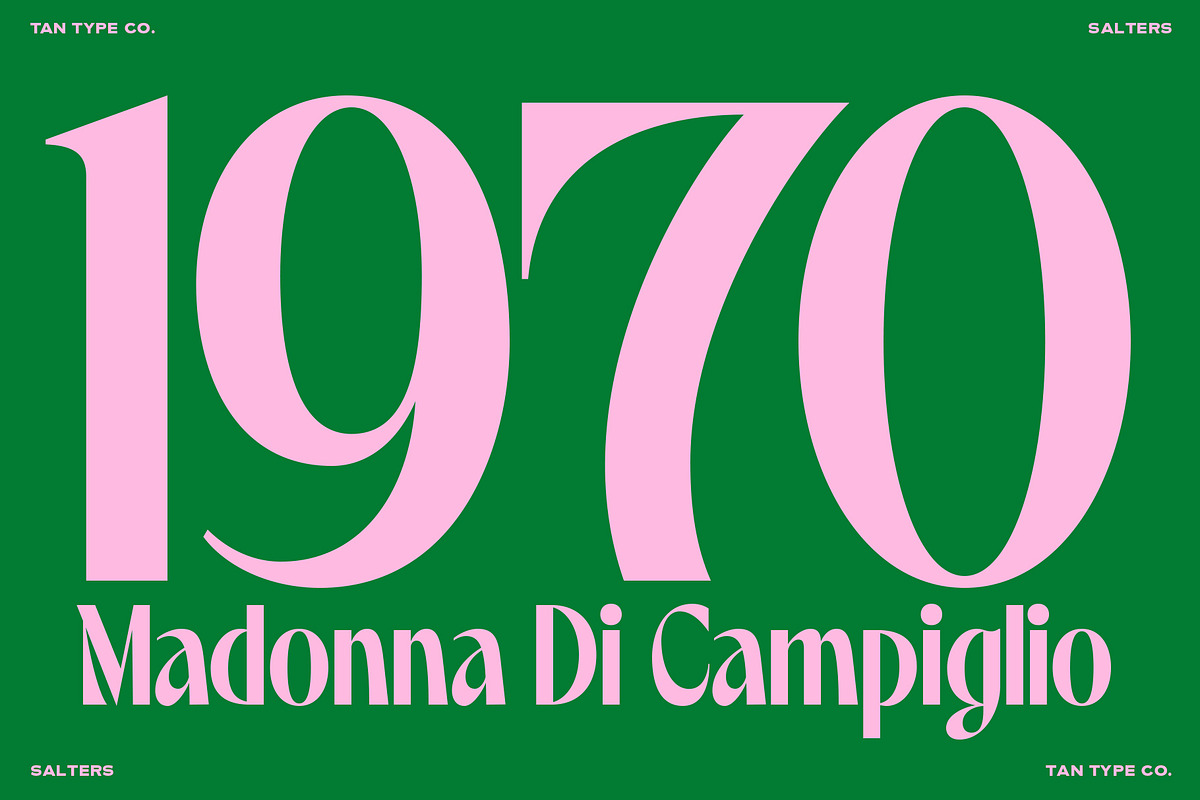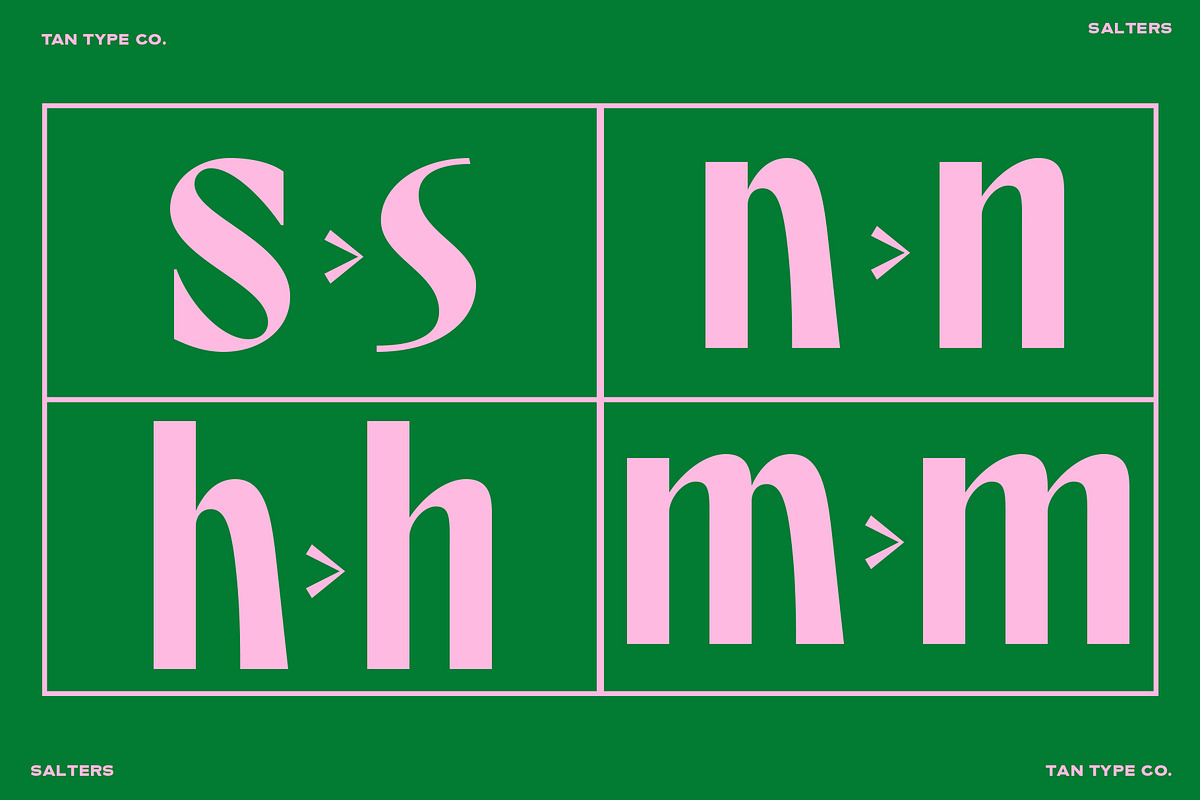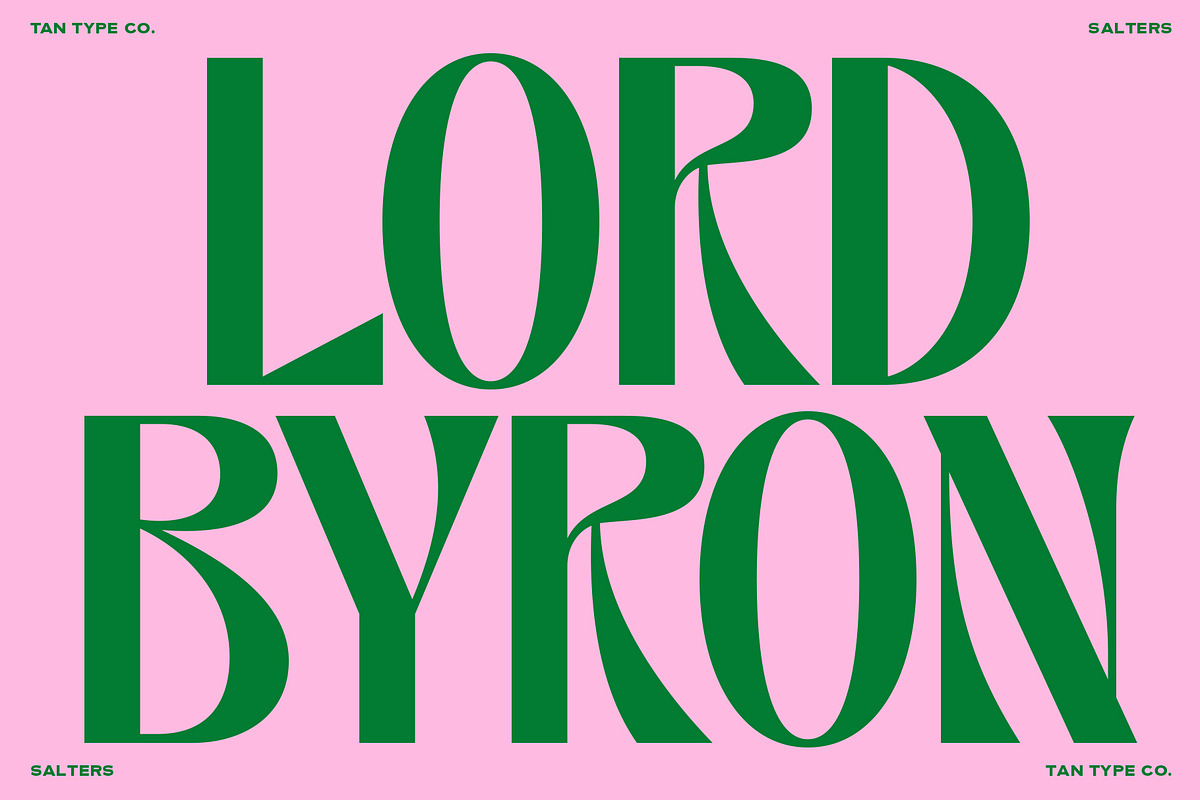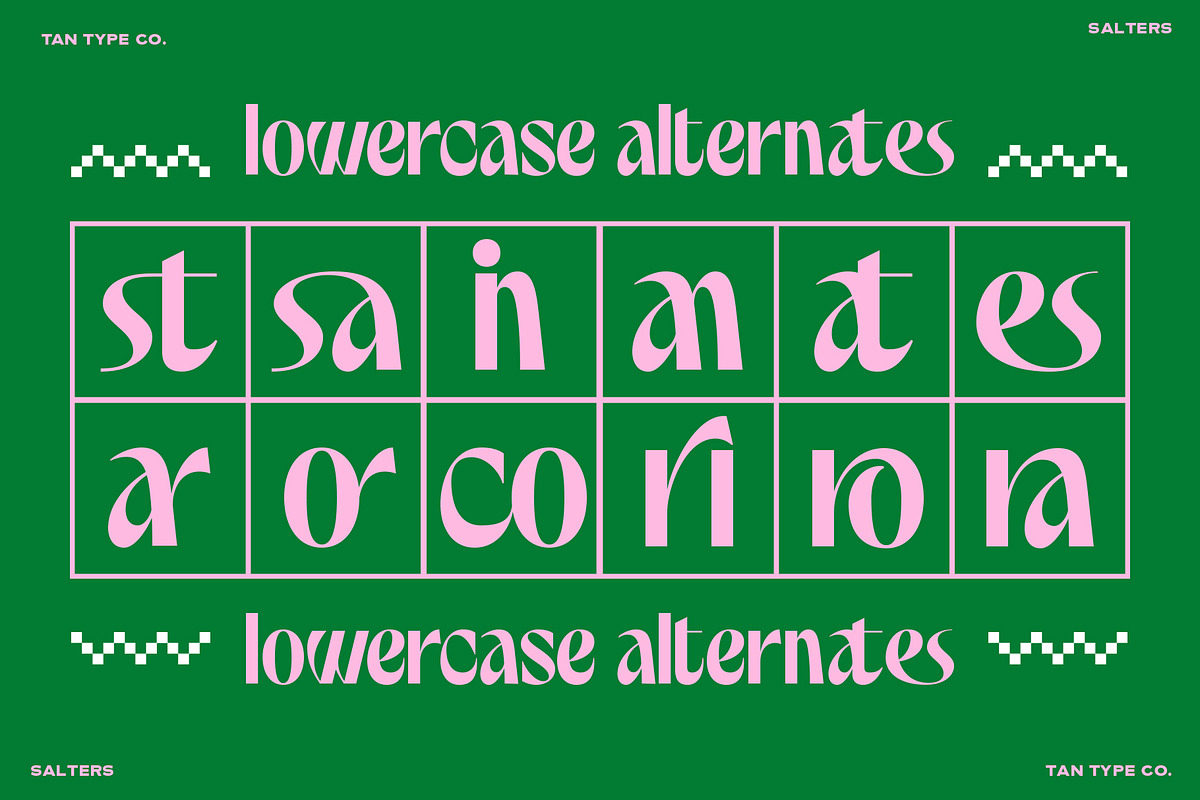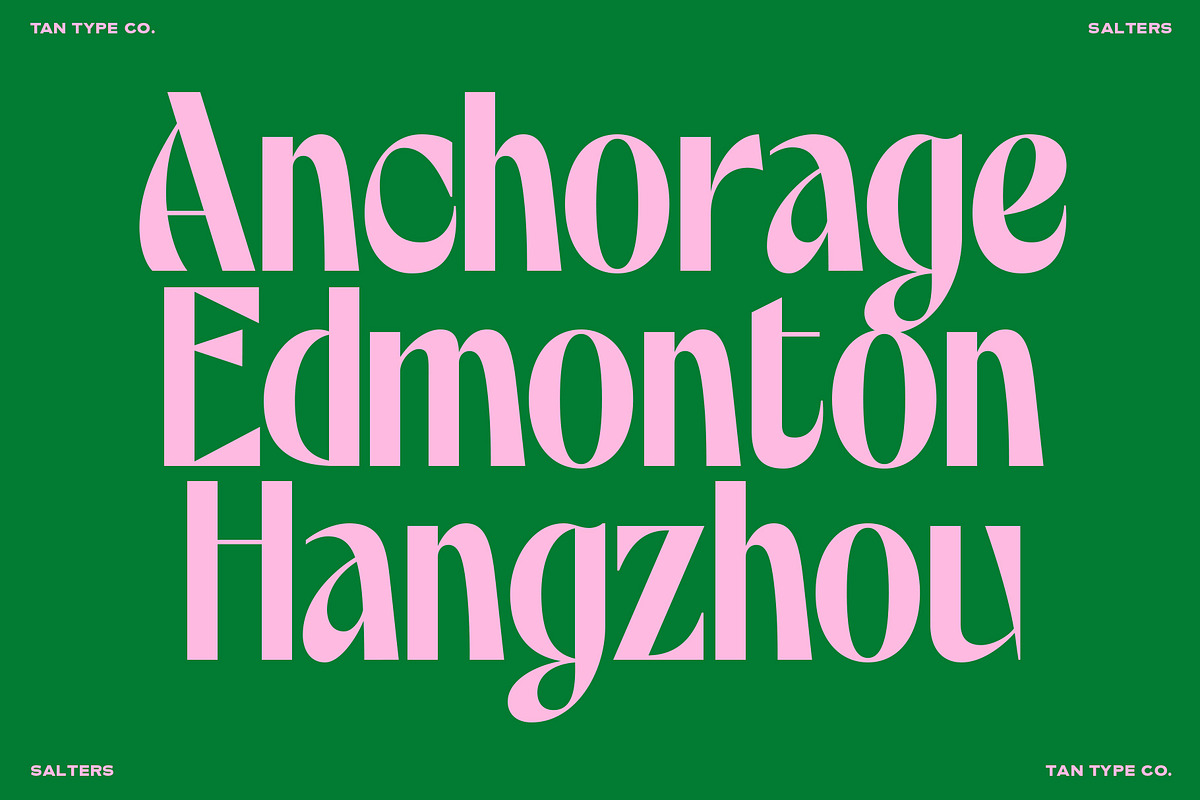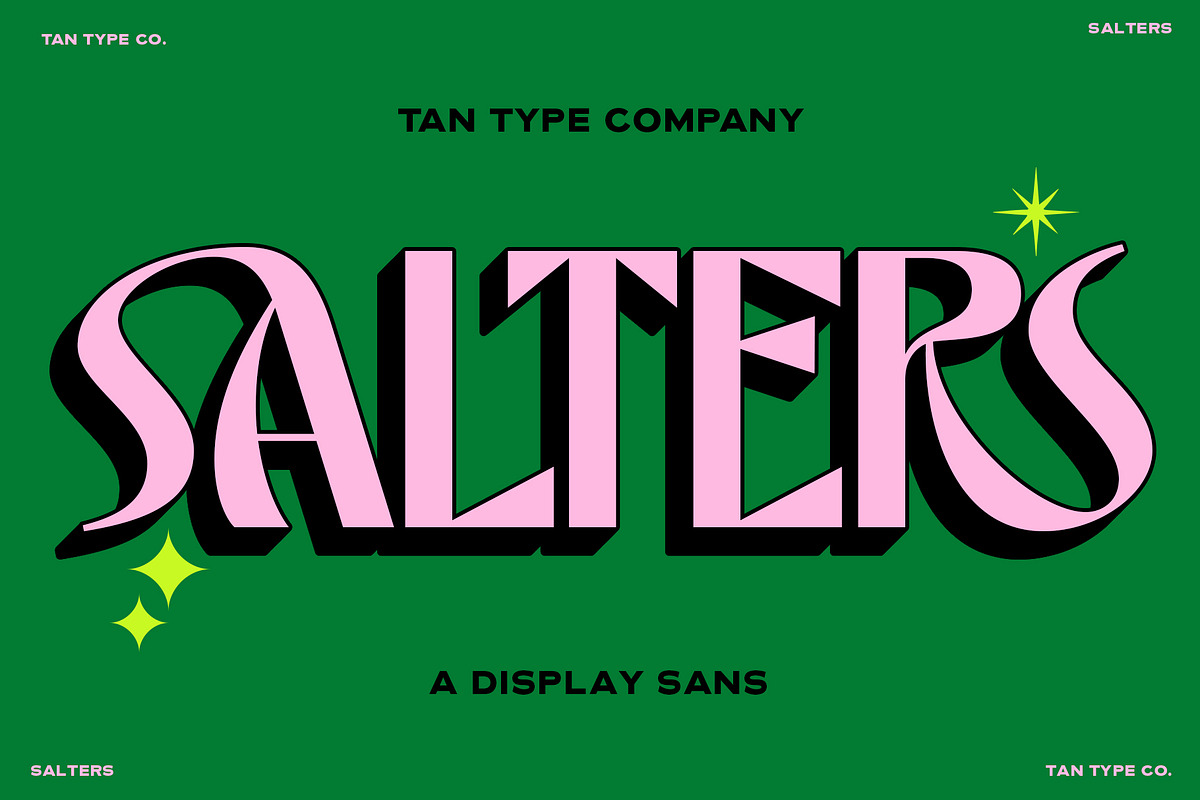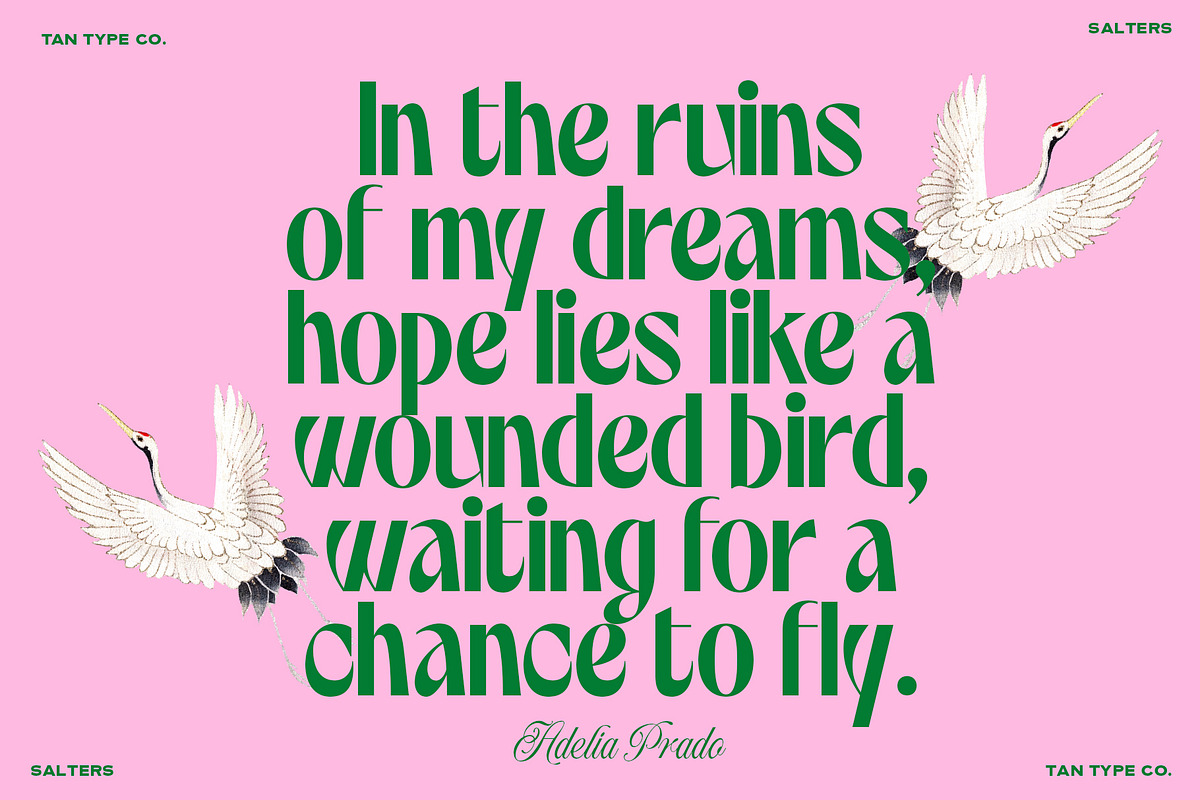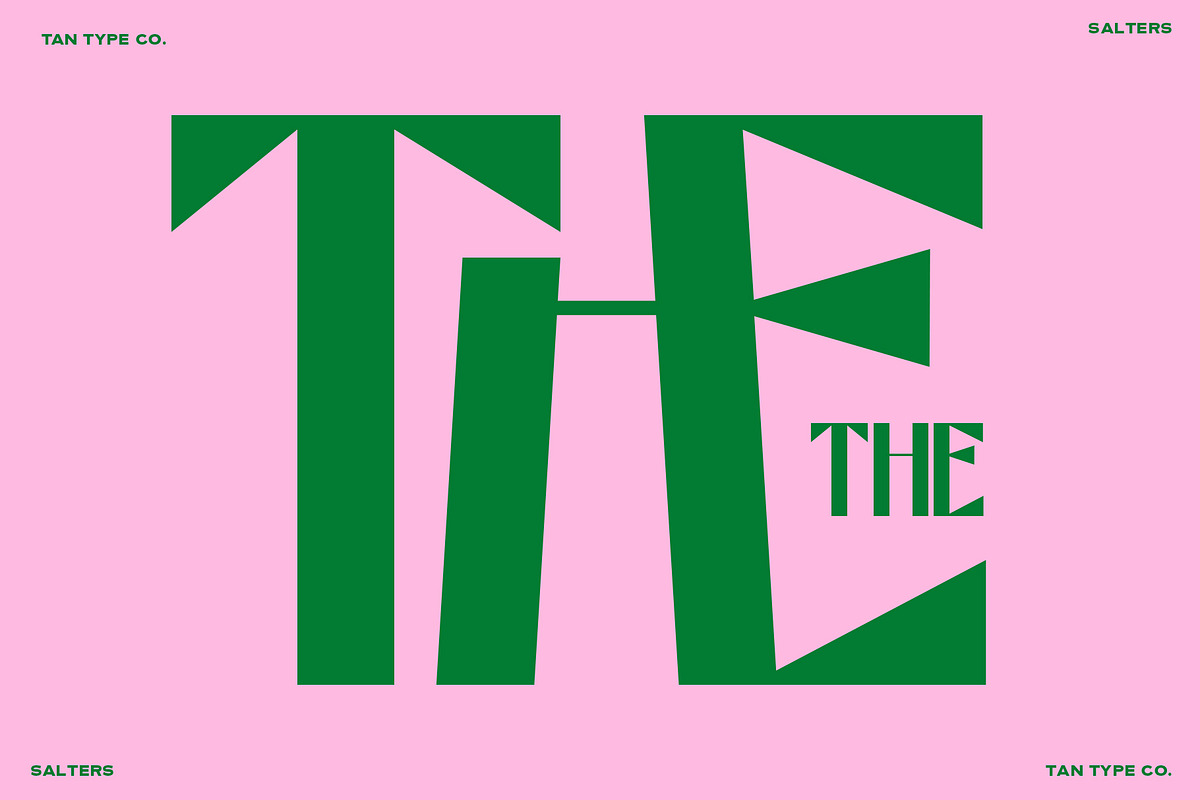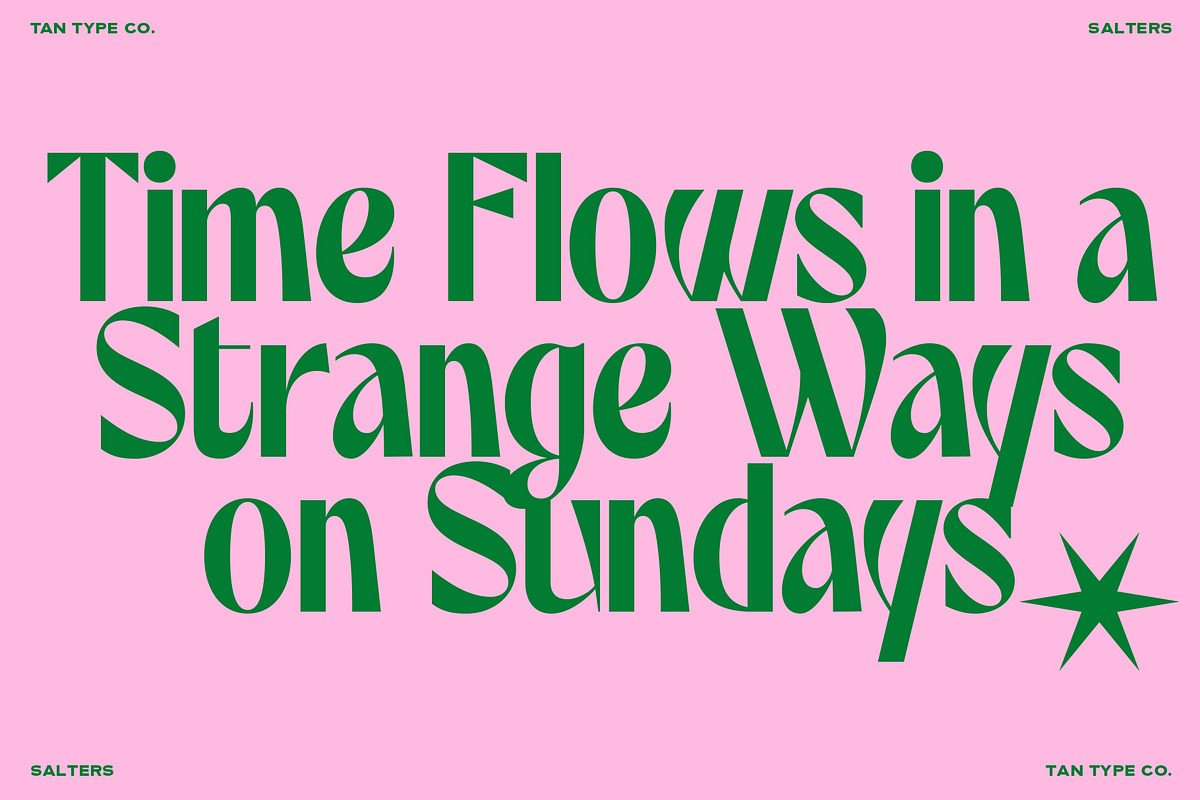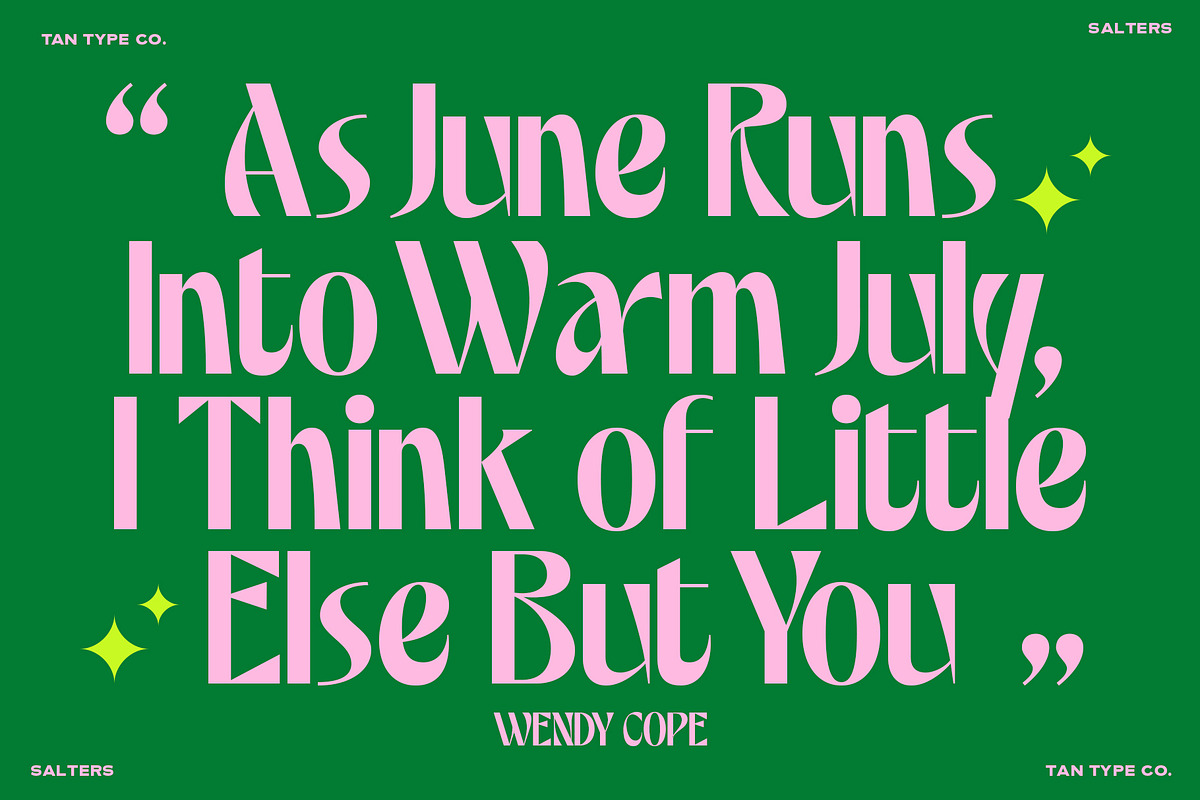
TAN - SALTERS
TAN - SALTERS is a bold and elegant display typeface that channels the timeless charm of midcentury design. With clean lines and confident proportions, it strikes a balance between striking presence and understated simplicity. Salters makes a statement without shouting—perfect for headlines, branding, editorial layouts, or anywhere a touch of classic sophistication is needed. It’s plainspoken yet poised, refined yet approachable—a modern homage to vintage flair.